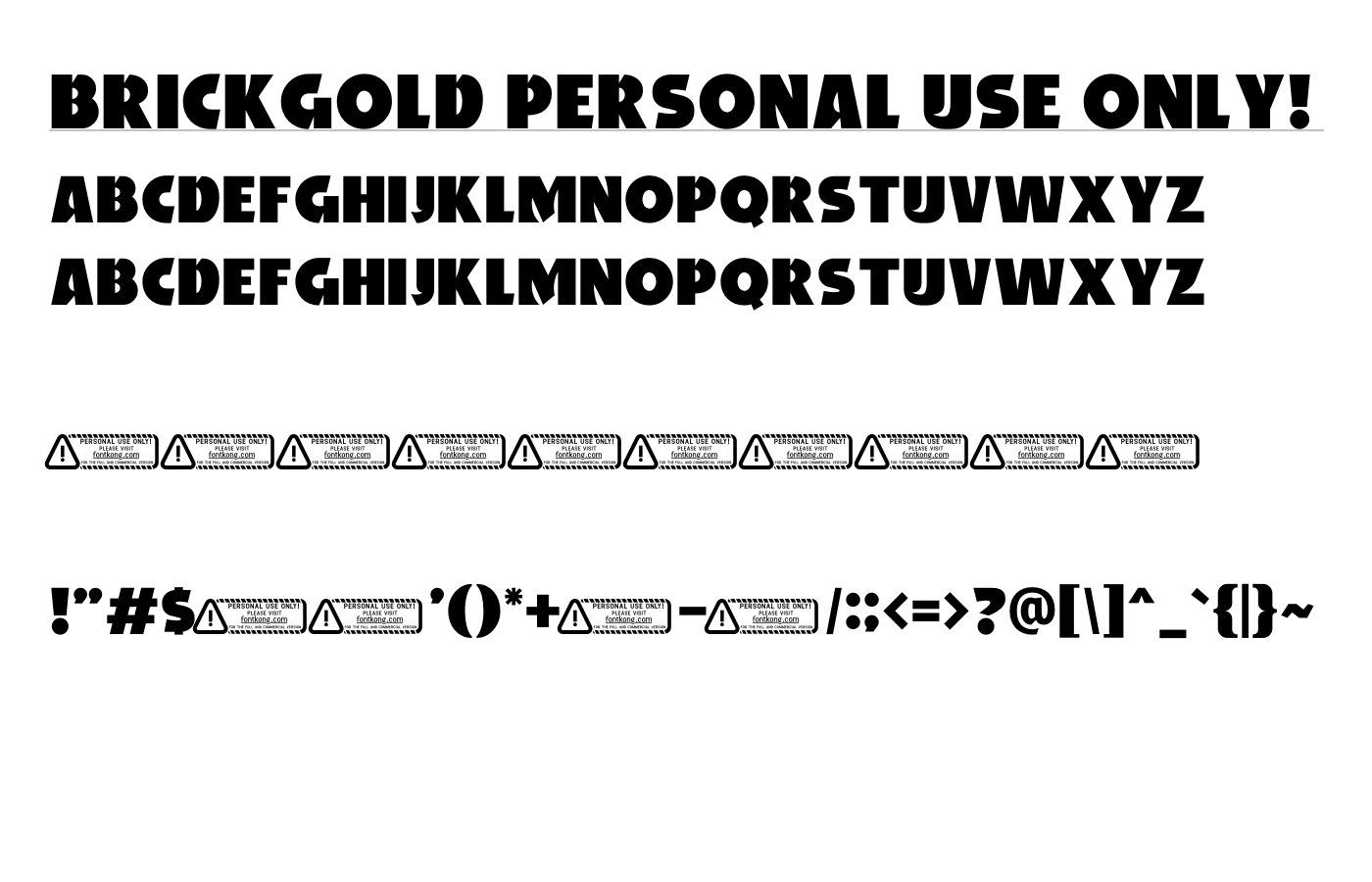
Brickgold is a bold, condensed sans serif font with a strong, geometric style that gives it a playful yet commanding presence. Its thick strokes and sharp angles make it perfect for headlines, logos, and branding that need to stand out with a modern, energetic vibe. This font works well in designs where impact and readability are key, especially for creative projects and eye-catching display purposes.
Brickgold PERSONAL USE ONLY! Font
About Brickgold PERSONAL USE ONLY! Font